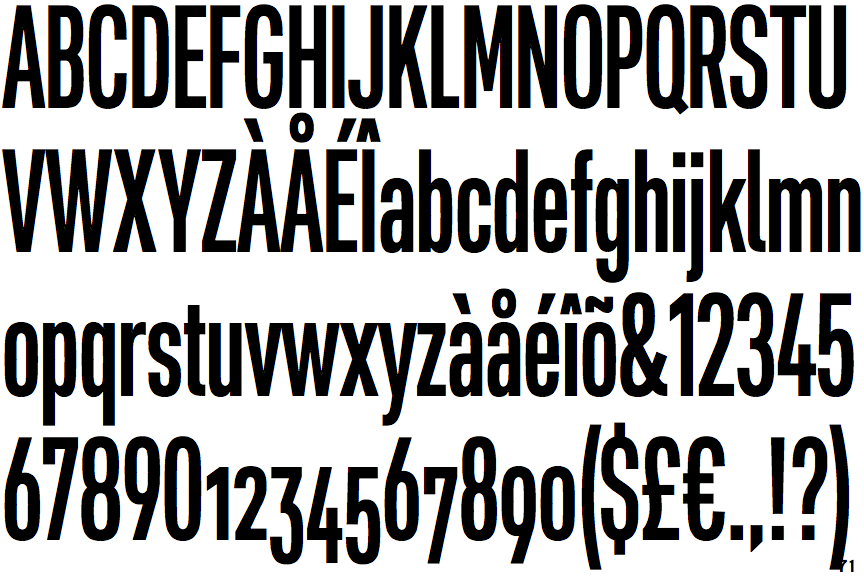
Neue DIN Extra Condensed Bold
One of the Tallest sans-serif fonts for narrow spaces.
Designers: Andreas Frohloff, Hendrik Weber and Olli Meier Year: 2023 Publisher: Fontwerk An OpenType font that includes both lining and oldstyle figures. |